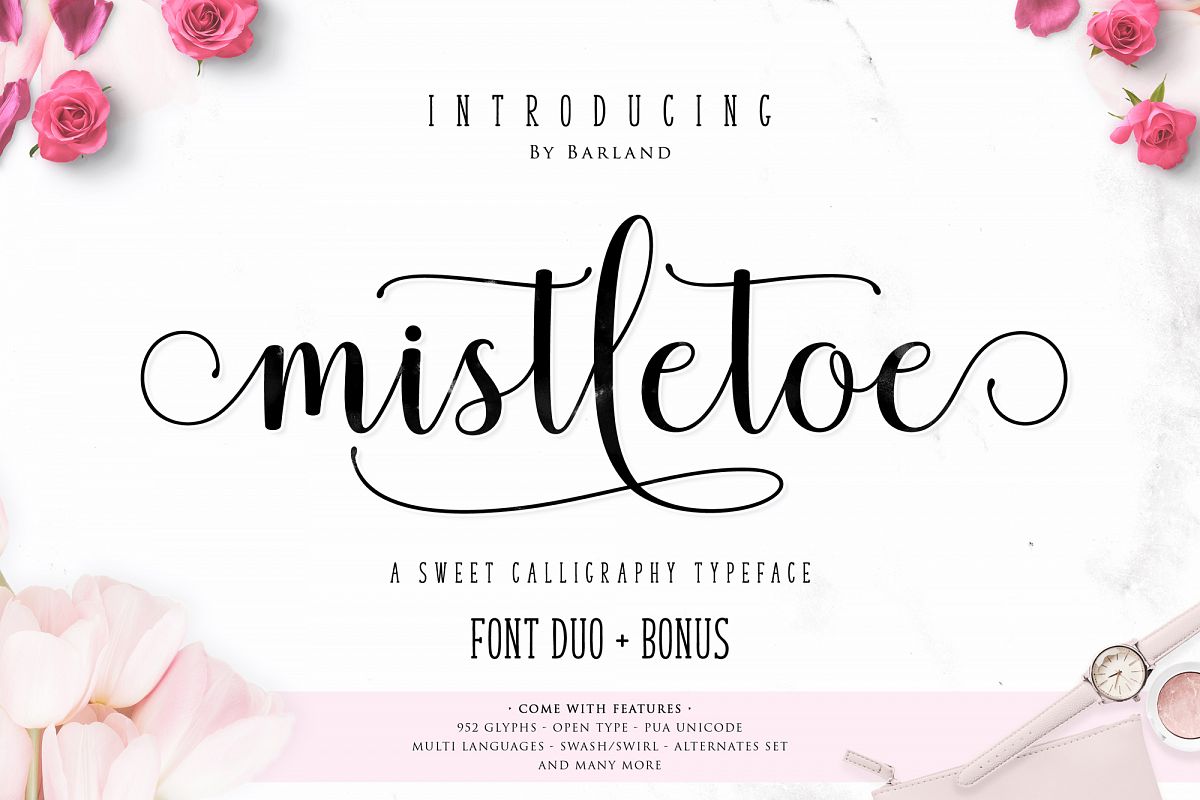
Graphic designers work with so many typefaces every day and are always searching for new and awesome collections. With this incredible selection, graphic designers can grab just one for a special project, a big bundle for their collections, or just because they love typefaces.
Creating Elegant Graphic Designs With Script Fonts
Artists, if you're in the market for a gorgeous cursive script-style typeface and want to make sure you get the best premium fonts out there, then you'll be quite happy with the options in our calligraphy category! Using a calligraphy-style typeface means you can get a delightful and elegant feel for your graphic designs and craft projects with ease. This font style is known for its graceful style, and of course, swirls, swashes, glyphs, and more. Not all the script typeface options have glyphs, of course, but oh so many do, and wow, are they incredible!
These gorgeous typefaces are ideal for such a wide variety of graphic designs and crafts. Scripts are the perfect typeface for wedding designs, scrapbooking, card making, paper crafts, and more. Artists love working with them to create an elegant feel in their artwork.
Businesses can use this fantastic cursive script style for branding, logos, advertisements, marketing materials, and all the goodies! You'll be in awe at our selection of the best script fonts and calligraphy-style typefaces for all your projects that will surely lend an elegant and sophisticated touch. Of course, these fonts are perfect for giving a premium quality vibe to products and services and adding that feminine touch. Another way that many designers and artists use these script fonts to create works that have a truly handwritten feel.
More Script Typeface Styles for Craft Projects
If you're looking for something with a more natural feel, then brush fonts might be for you. Or, if you're unsure what style of script font you need, then browse through our free script fonts and free calligraphy fonts to see what stands out for you. Who knows, you may find your next favorite calligraphy script font in our freebies section!
Whatever your intended purpose might be, calligraphy script fonts will give you all that you want or need and more. Browse through our extensive collection for your next favorite calligraphy style font! The best calligraphy fonts are right here on Font Bundles! And don't forget to check for those free calligraphy style fonts!